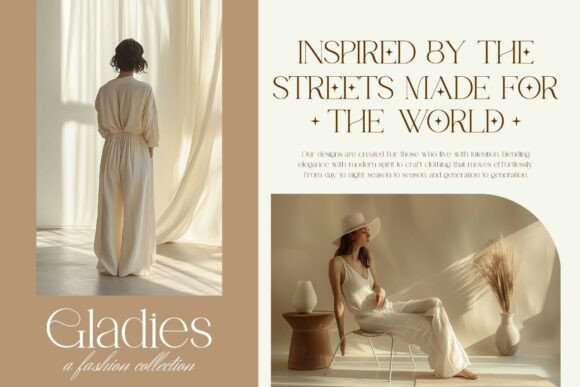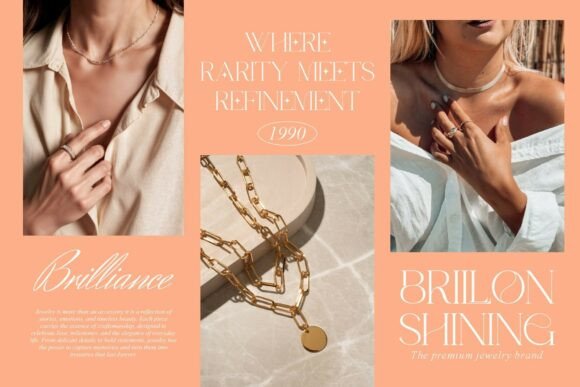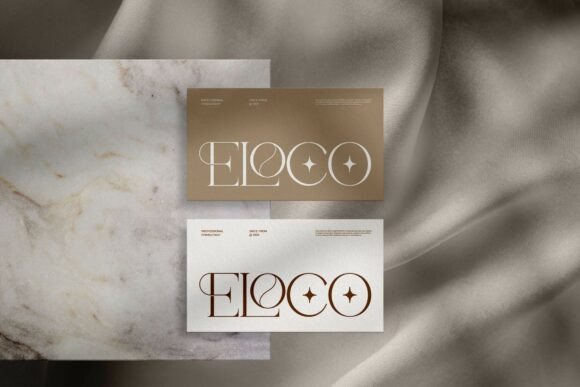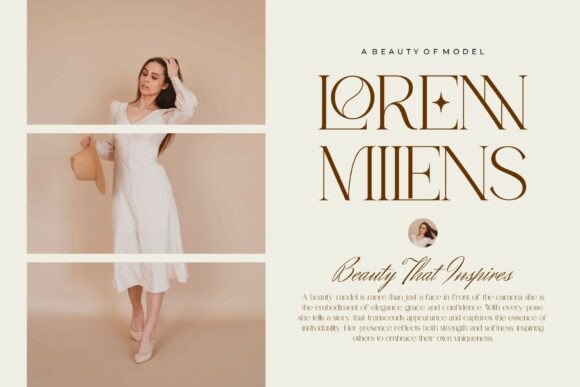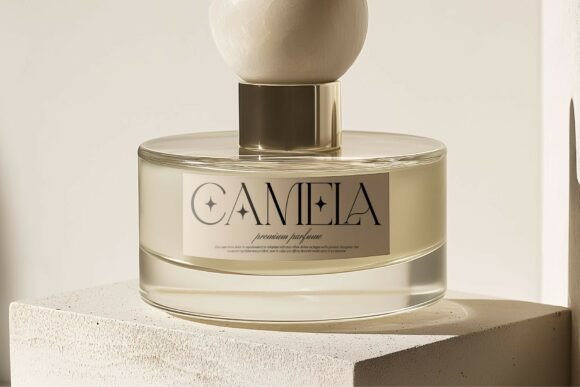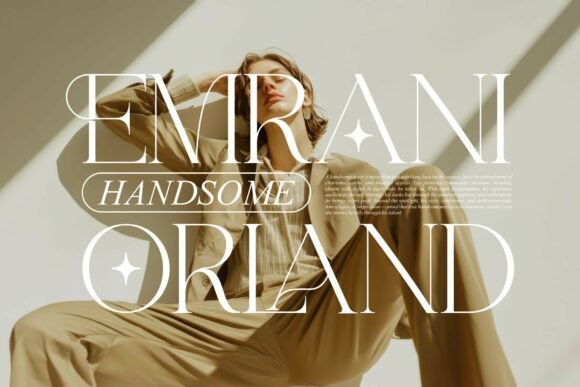
Introduction to Ronnea Font
Imagine you’re working on a high-end fashion campaign and need a font that exudes luxury and sophistication. You browse through design resources, scrolling through pages of typography, searching for the perfect fit. That’s where Ronnea Font comes in – a sleek, modern serif font that combines elegance with contemporary minimalism, making it the ideal choice for designers seeking to elevate their creative projects.
Whether you’re working on a fashion branding project, designing wedding invitations, or creating packaging for upscale products, Ronnea Font is the perfect design resource to communicate style and refinement with ease. Its thin strokes, delicate serifs, and balanced proportions bring a touch of sophistication to any design, making it a valuable addition to your design arsenal.
Key Features of Ronnea Font
- High-quality font designed for creative projects, ideal for use in various design applications.
- Designed with a unique and elegant style, perfect for adding a touch of sophistication to any creative project.
Honest Review: Ronnea Font
Here are some of the things that work well with the Ronnea Font:
- High quality design: The font is clean, modern, and visually appealing, making it perfect for a wide range of creative projects.
- Wide character set: The font has a large character set, including uppercase and lowercase letters, numbers, and symbols, making it versatile and easy to use.
- Great for digital design: The font is well-suited for digital design, including web design, mobile app design, and more.
- Limited font styles: The font only comes in a few different styles, which may not be enough for some designers.
- No bold or italic options: The font does not have bold or italic options, which can be limiting for certain design projects.
Overall, I’m impressed with the Ronnea Font. It’s a high-quality design resource that’s perfect for a wide range of creative projects. While it may have a few limitations, it’s still a great option for designers who are looking for a clean, modern font.
Tips for Getting the Most Out of Ronnea Font
To get the most out of Ronnea Font, use it on a transparent background for a seamless integration with your design. You can also experiment with different font sizes, colors, and styles to add depth and visual interest to your project.